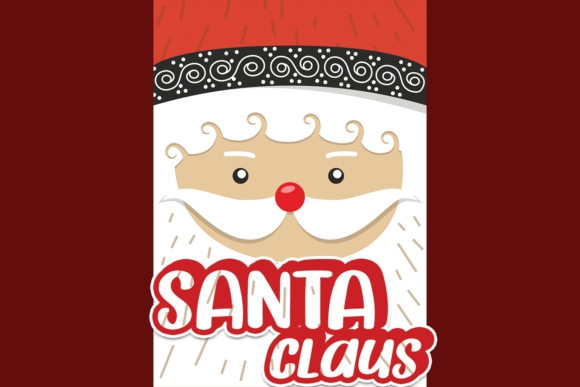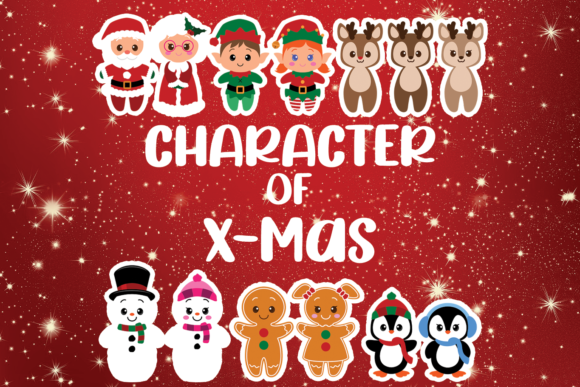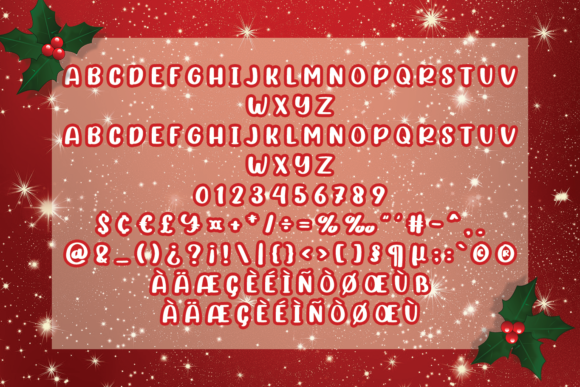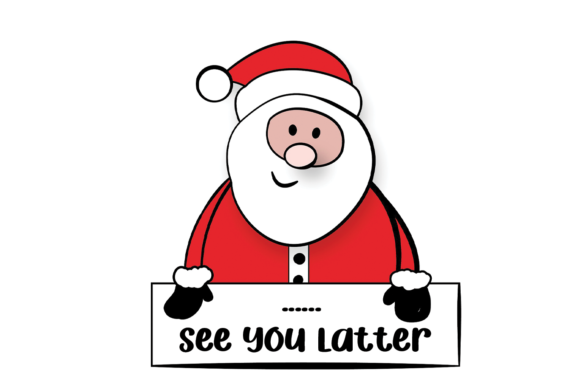
Introducing Christmas Day Font: The Perfect Addition to Your Holiday Designs
Are you looking for a font that captures the spirit of the holiday season? Look no further than Christmas Day Font! This cool and fun display font is perfect for adding a touch of festive flair to your designs. With its unique and eye-catching style, Christmas Day Font can easily be matched to an incredibly large set of projects, making it a versatile and valuable addition to your font collection.
The Features of Christmas Day Font
So, what makes Christmas Day Font so special? Here are just a few of its key features:
- Unique and eye-catching style: Christmas Day Font has a distinctive and stylish design that’s sure to grab attention. Its bold and playful lines make it perfect for headlines, titles, and other display text.
- Highly versatile: Whether you’re designing a holiday card, a festive flyer, or a seasonal website, Christmas Day Font can be matched to a wide range of projects and styles.
- Easy to use: With its clear and clean lines, Christmas Day Font is easy to read and works well in a variety of sizes and resolutions.
Why Designers and Crafters Love Christmas Day Font
Christmas Day Font has quickly become a favorite among designers and crafters, and it’s easy to see why. Here are just a few reasons why:
- Instant holiday cheer: Christmas Day Font adds a touch of festive fun to any design, making it perfect for holiday-themed projects.
- Endless creative possibilities: With Christmas Day Font, you can create everything from holiday cards and invitations to festive flyers and posters.
- Easy to pair with other fonts: Christmas Day Font works well with a wide range of fonts and styles, making it easy to mix and match to create a unique look.
Ideas for Using Christmas Day Font
So, how can you use Christmas Day Font in your designs? Here are a few ideas to get you started:
- Holiday cards and invitations: Use Christmas Day Font to create festive and fun holiday cards and invitations that are sure to impress.
- Festive flyers and posters: Add a touch of holiday cheer to your flyers and posters with Christmas Day Font.
- Seasonal website headers: Use Christmas Day Font to create eye-catching and festive website headers that set the tone for the holiday season.
- Social media graphics: Add a touch of holiday fun to your social media graphics with Christmas Day Font.
Tips for Getting the Most Out of Christmas Day Font
To get the most out of Christmas Day Font, here are a few tips to keep in mind:
- Experiment with different sizes and colors: Christmas Day Font looks great in a variety of sizes and colors, so don’t be afraid to experiment and find the perfect combination for your design.
- Pair it with other fonts: Christmas Day Font works well with a wide range of fonts and styles, so try pairing it with other fonts to create a unique look.
- Use it sparingly: While Christmas Day Font is perfect for headlines and titles, it can be overwhelming if used too much. Use it sparingly to create a balanced and visually appealing design.
Christmas Day Font is a fun and festive display font that’s perfect for adding a touch of holiday cheer to your designs. With its unique and eye-catching style, highly versatile design, and ease of use, it’s a valuable addition to any font collection. Whether you’re a designer, crafter, or simply someone who loves the holiday season, Christmas Day Font is sure to become a favorite. So why wait? Download Christmas Day Font today and start adding some holiday magic to your designs!